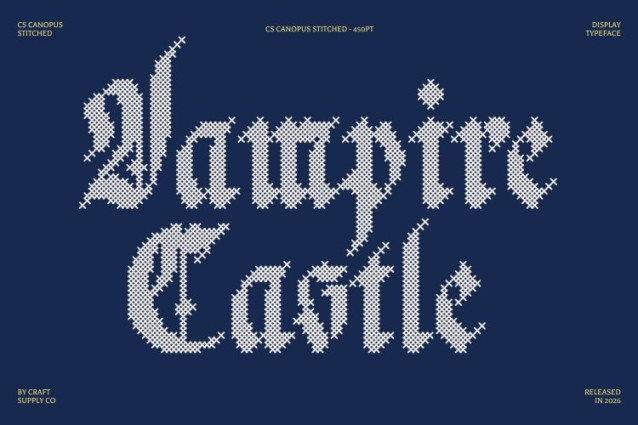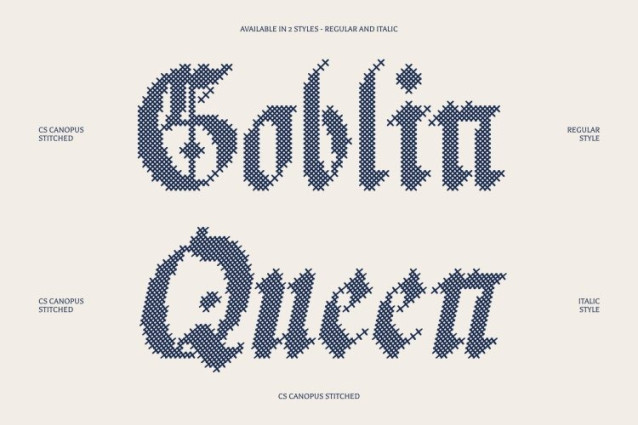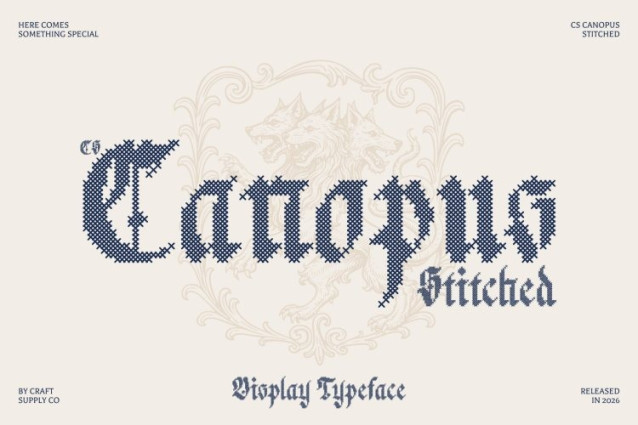
CS Canopus Stitched Font
CS Canopus Stitched Font – This is a display serif font inspired by the timeless elegance of Blackletter Old English typography, enhanced with a stitched embroidery style. The cross-shaped thread pattern creates a tactile, handcrafted feel, giving each letter a warm, nostalgic, and fabric-like character while preserving its formal and historic presence.
Classic Form with Decorative Detail
Defined by thick strokes, sharp angles, and ornate forms, this font captures the dramatic beauty of traditional Gothic lettering. The embossed stitched texture adds depth and personality, transforming classic letterforms into a distinctive visual experience that feels both refined and approachable.
Authority and Elegance for Formal Designs
Perfect for projects that demand sophistication and gravitas, this font shines in formal invitations, heritage branding, book covers, certificates, and vintage-inspired posters. Its strong, ornamental design conveys prestige while the stitched effect introduces a welcoming, handcrafted charm.
Versatile for Vintage and Cultural Projects
Whether used for historical themes, luxury branding, or decorative packaging, this font blends grandeur with warmth. This font brings a sense of timeless authority and nostalgic craftsmanship, making every design feel elegant, personal, and memorable.